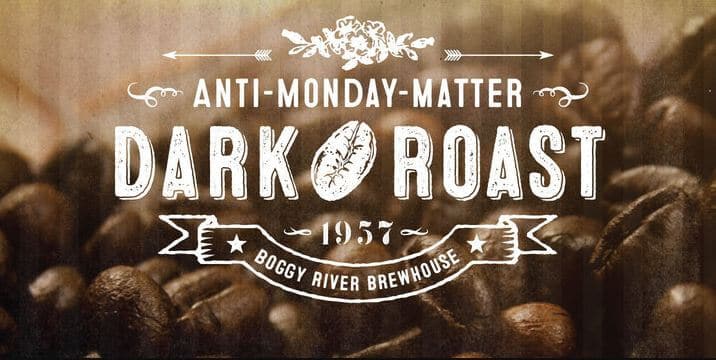
Microbrew Font Family
Microbrew Font Family loved ones is an easy, easy to learn font. But its easy simplicity belies a deeper stage of element. Where suitable, the letters look like clarkson font were designed with refined notches.
This produces sharper right angles that make more elaborate characters better outlined. It is influenced by vintage lettering with lowercases and in addition a little of a victorian flair.
Style Of Microbrew Font Family